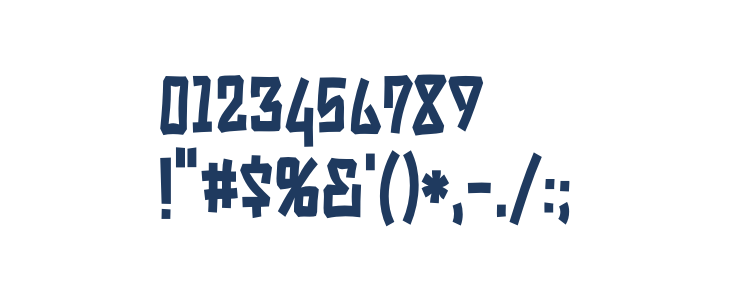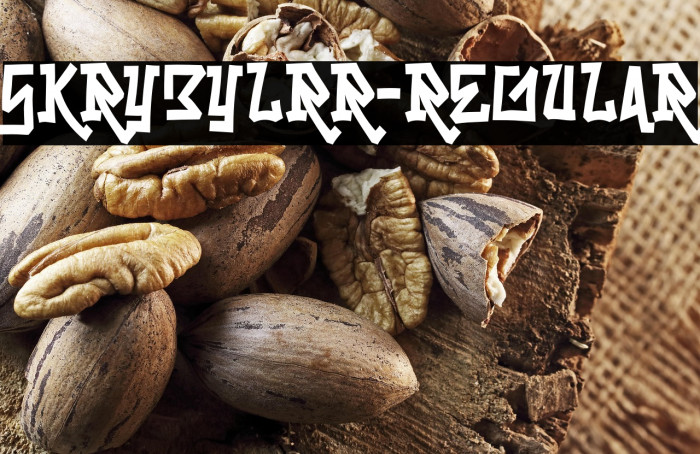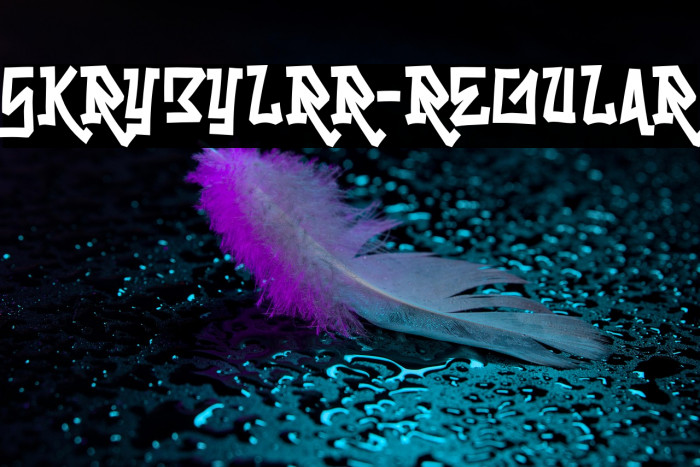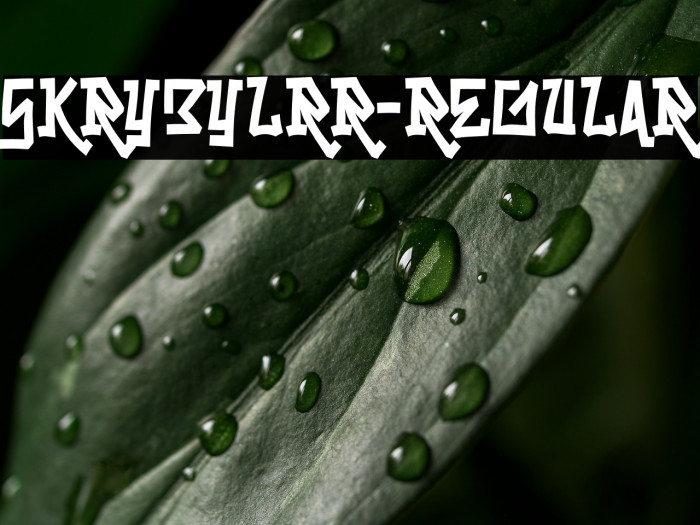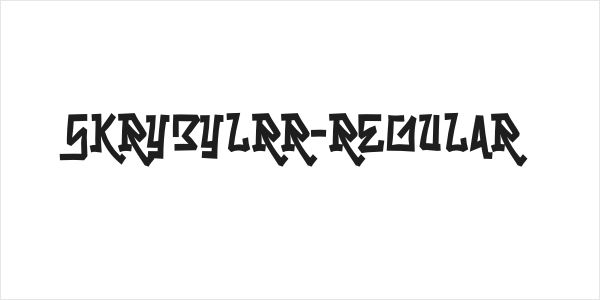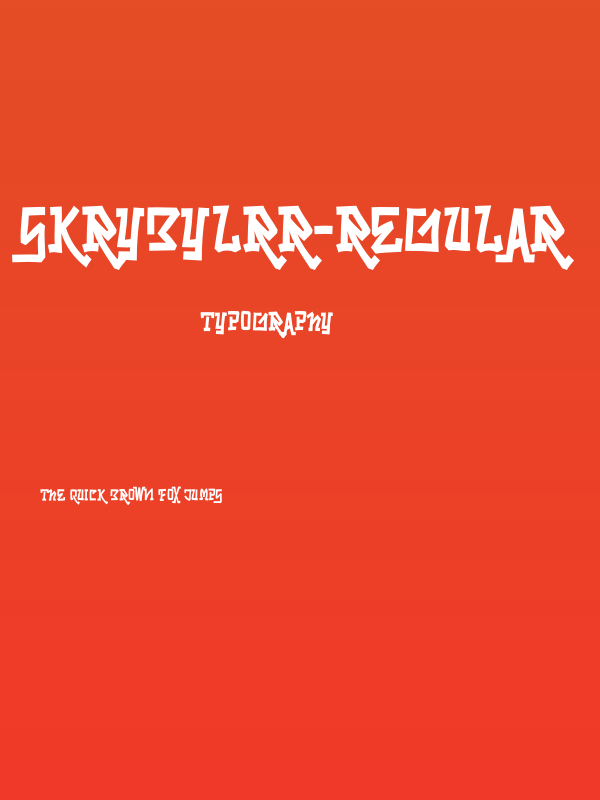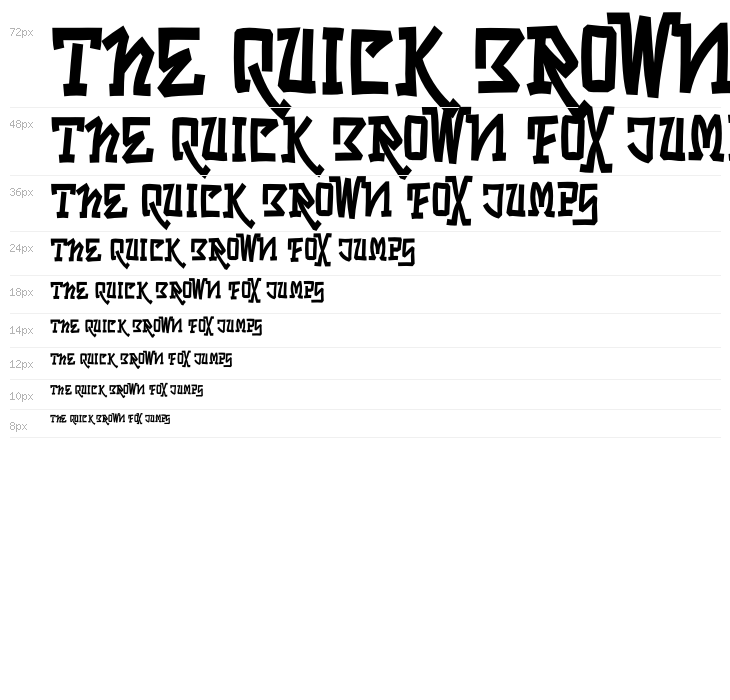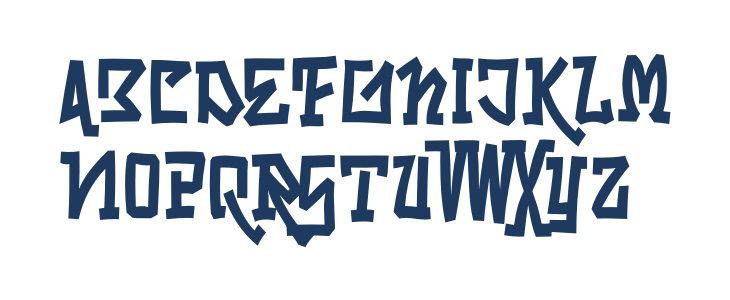
Skrybylrr-Regular Font
Skrybylrr-Regular Description
This font features a bold and edgy design with sharp, angular lines that give it a modern and rebellious feel. The characters are uniquely stylized, with a graffiti-like appearance that makes them stand out. The uppercase and lowercase letters maintain a consistent style, with exaggerated curves and points that add to the font's dynamic nature. The numbers and special characters are equally bold, ensuring a cohesive look across all elements. This font is perfect for projects that require a strong visual impact and a touch of urban flair.
| Proposed Projects | Ideal for street art designs, music album covers, edgy branding, and urban-themed posters. |